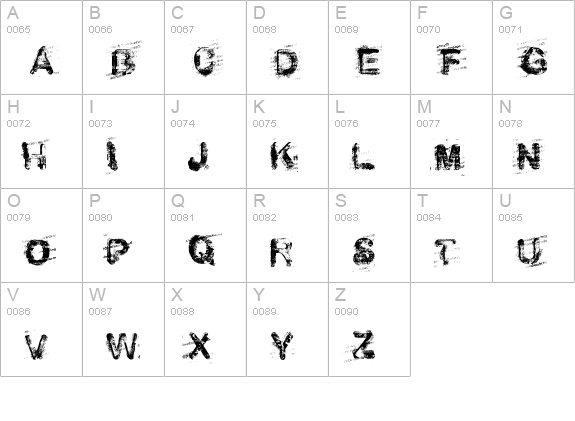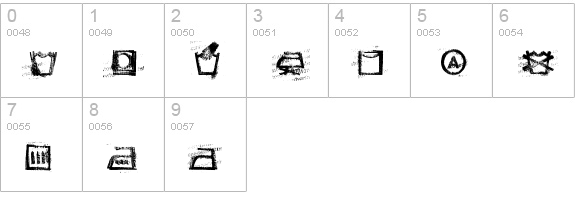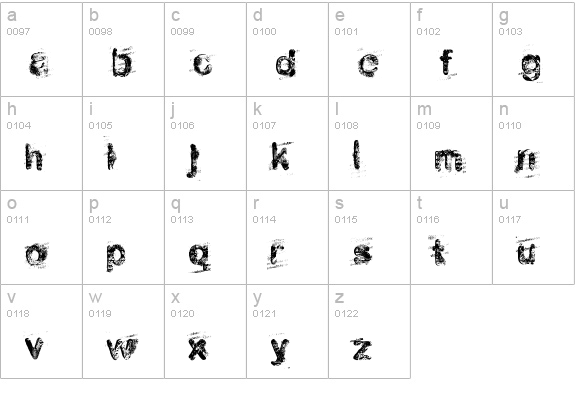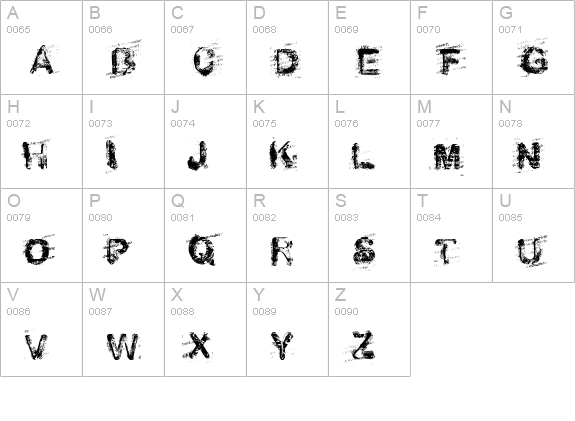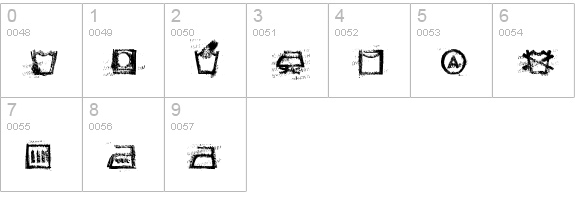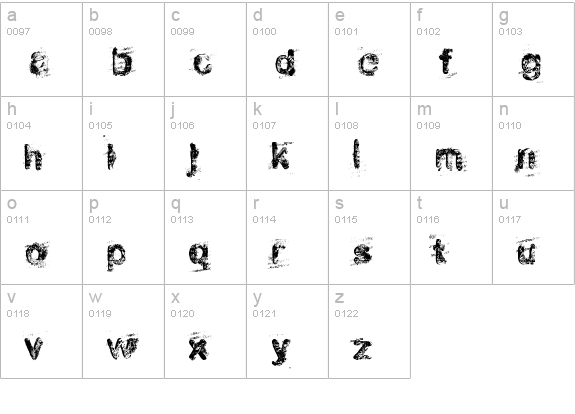
The stoned wash font is a unique and artistic typeface that exudes a sense of vintage charm and character. Its textured appearance gives off a rustic and weathered feel, making it perfect for projects that require a touch of nostalgia or a handmade look. The uneven edges and distressed details of this font add a sense of authenticity and personality to any design. What's even better is that the stoned wash font is completely free to download at FontsMarket.com. This means you can easily access this versatile typeface and incorporate it into your creative projects without any cost involved. Whether you're working on a poster, logo, or any other design, the stoned wash font is sure to add a unique and eye-catching element that will set your work apart. Don't miss out on this fantastic opportunity to enhance your designs with this one-of-a-kind font.